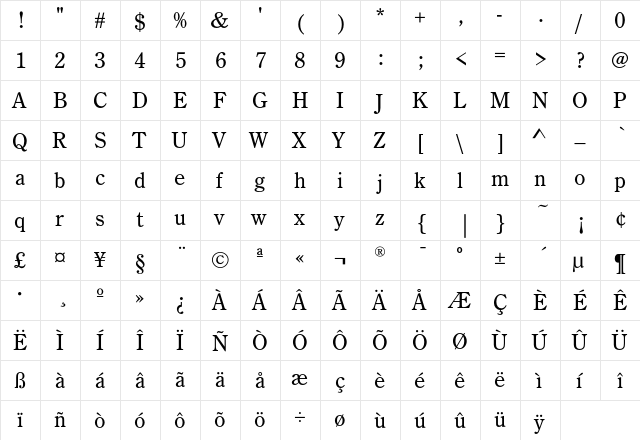
CenturyOldStyleEF Reg
Design Context for CenturyOldStyleEF Typeface
CenturyOldStyleEF brings classic typographic sensibility to the table — its serifs and measured letterforms reflect centuries of print heritage.
Pro Tip: Use CenturyOldStyleEF for editorial body copy and considered headline work. Pair with a neutral sans for UI elements or captions to create a classic hierarchy.